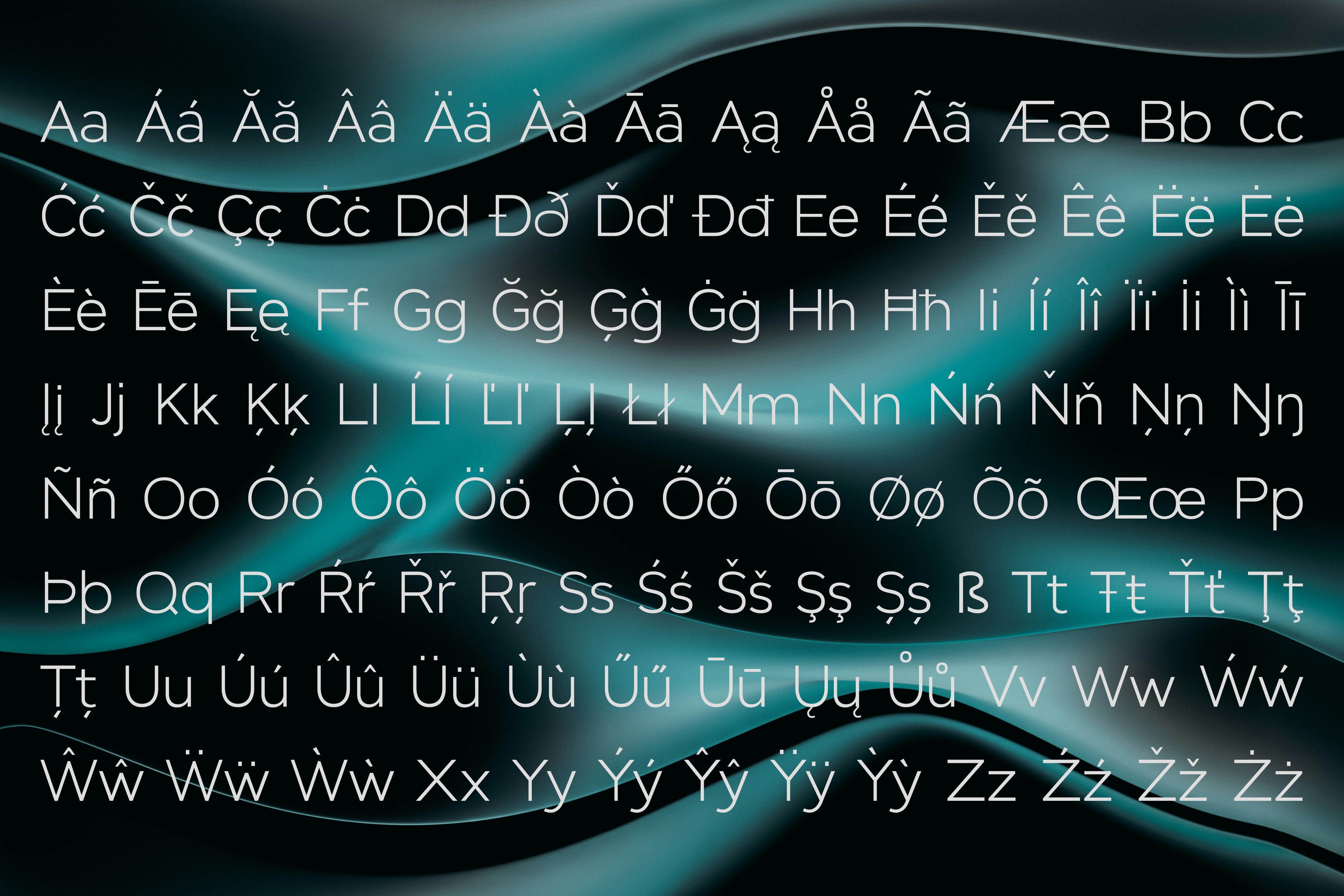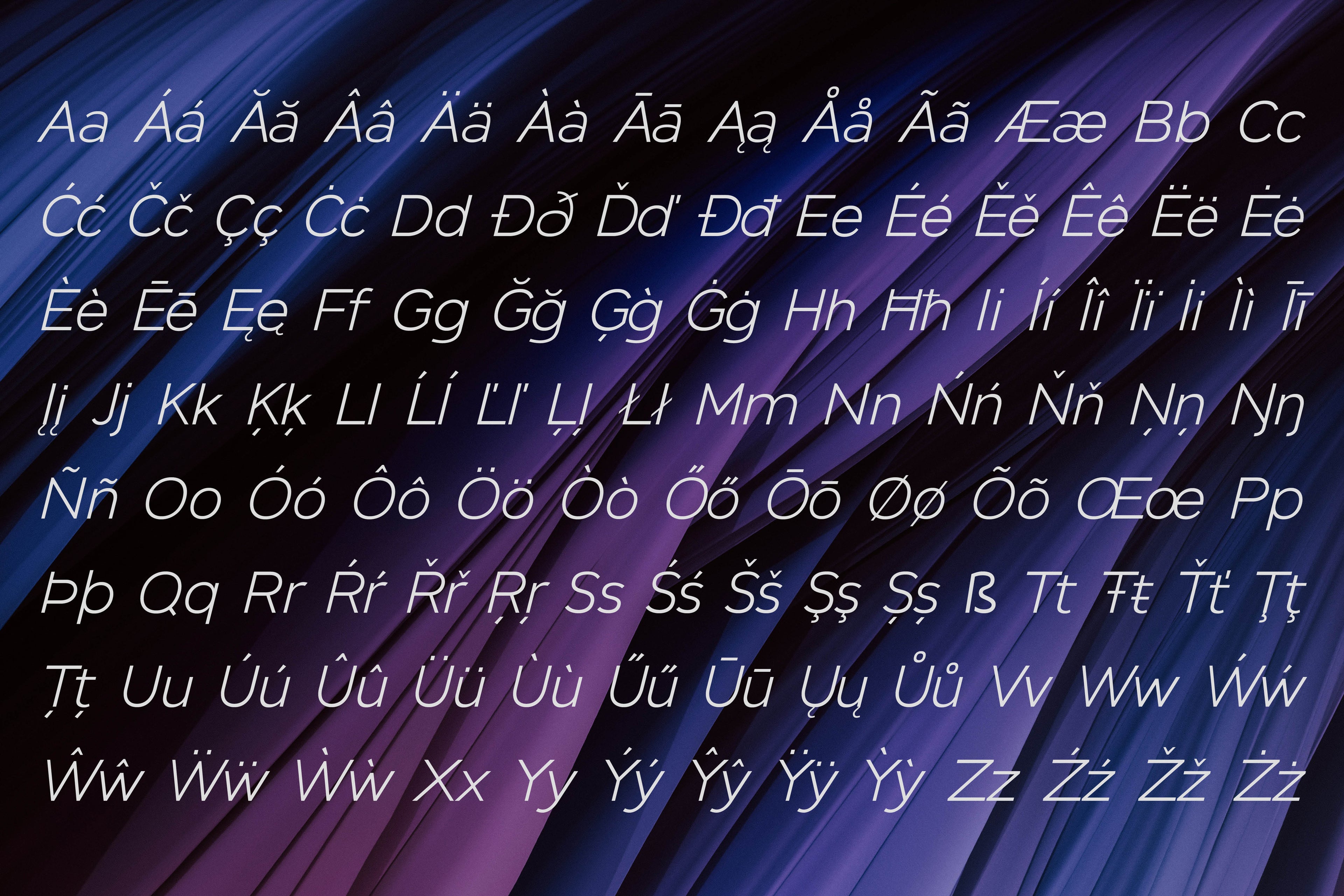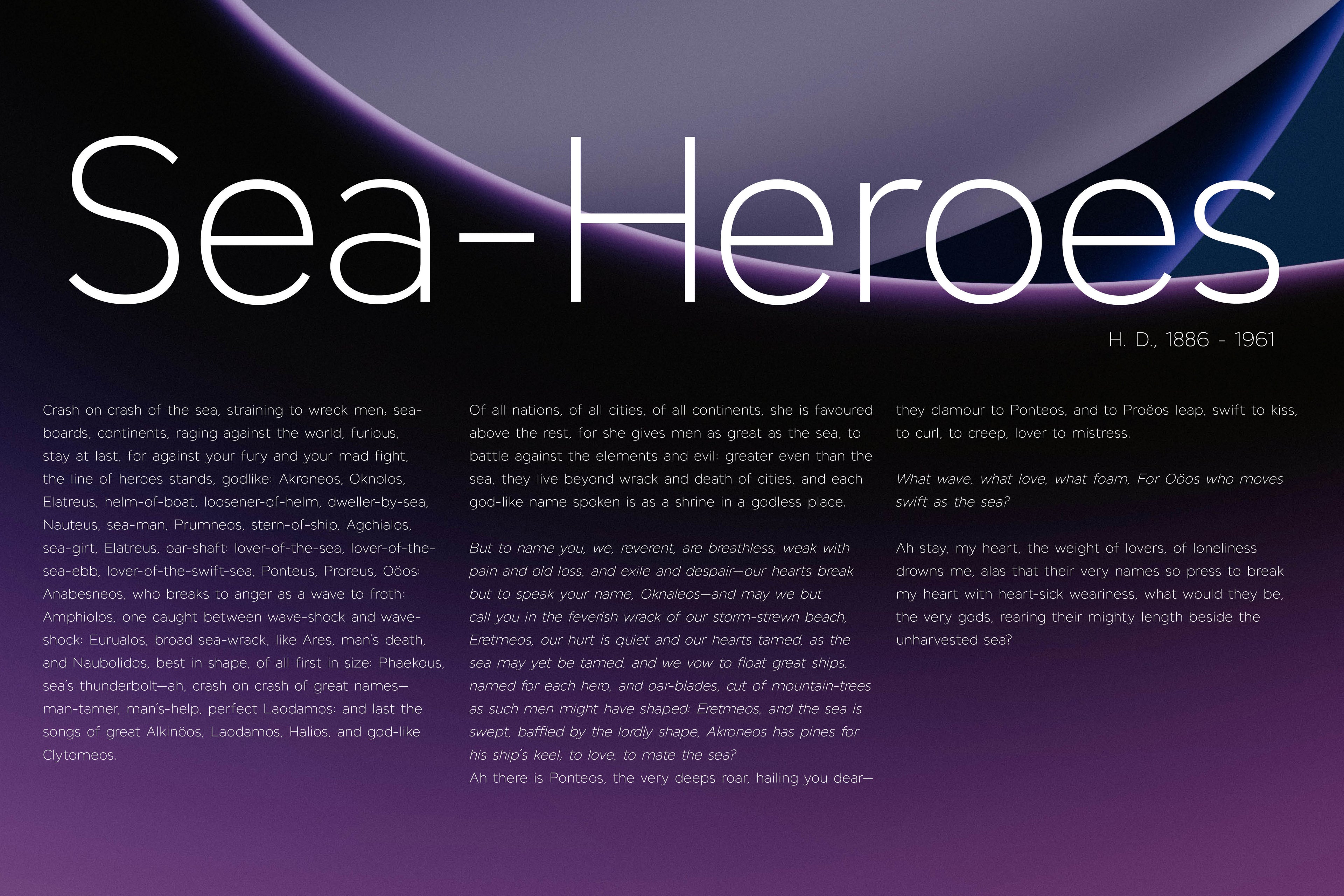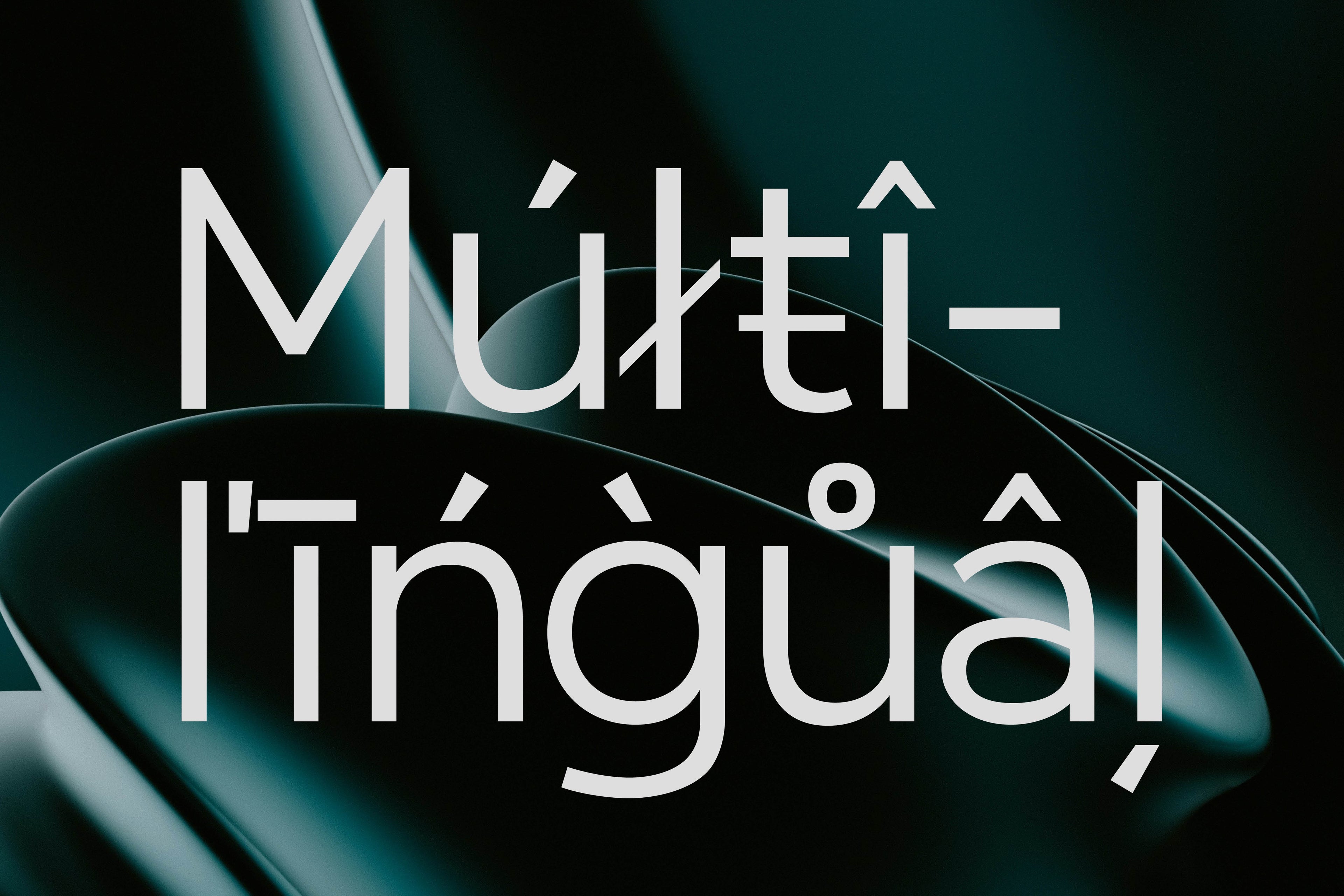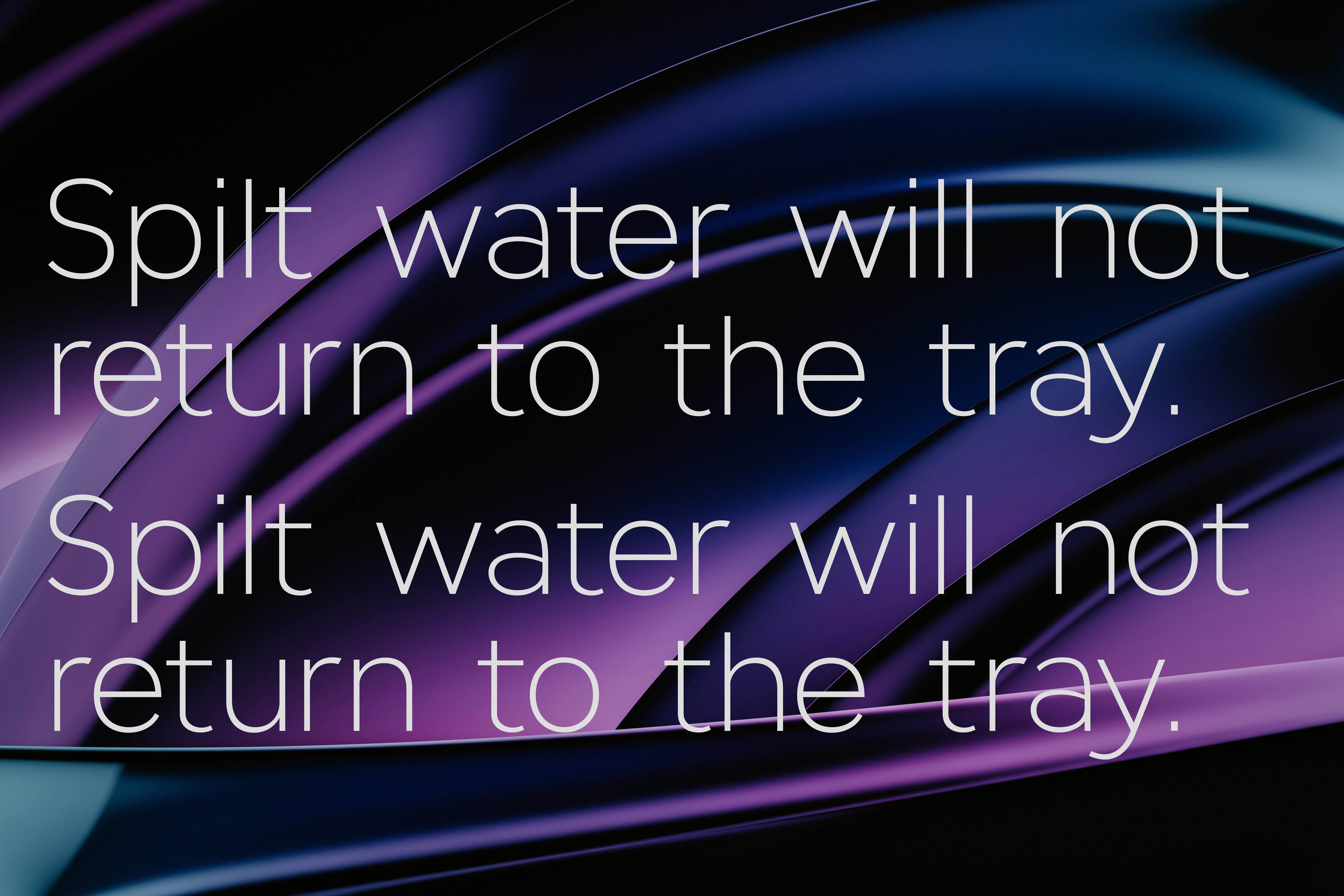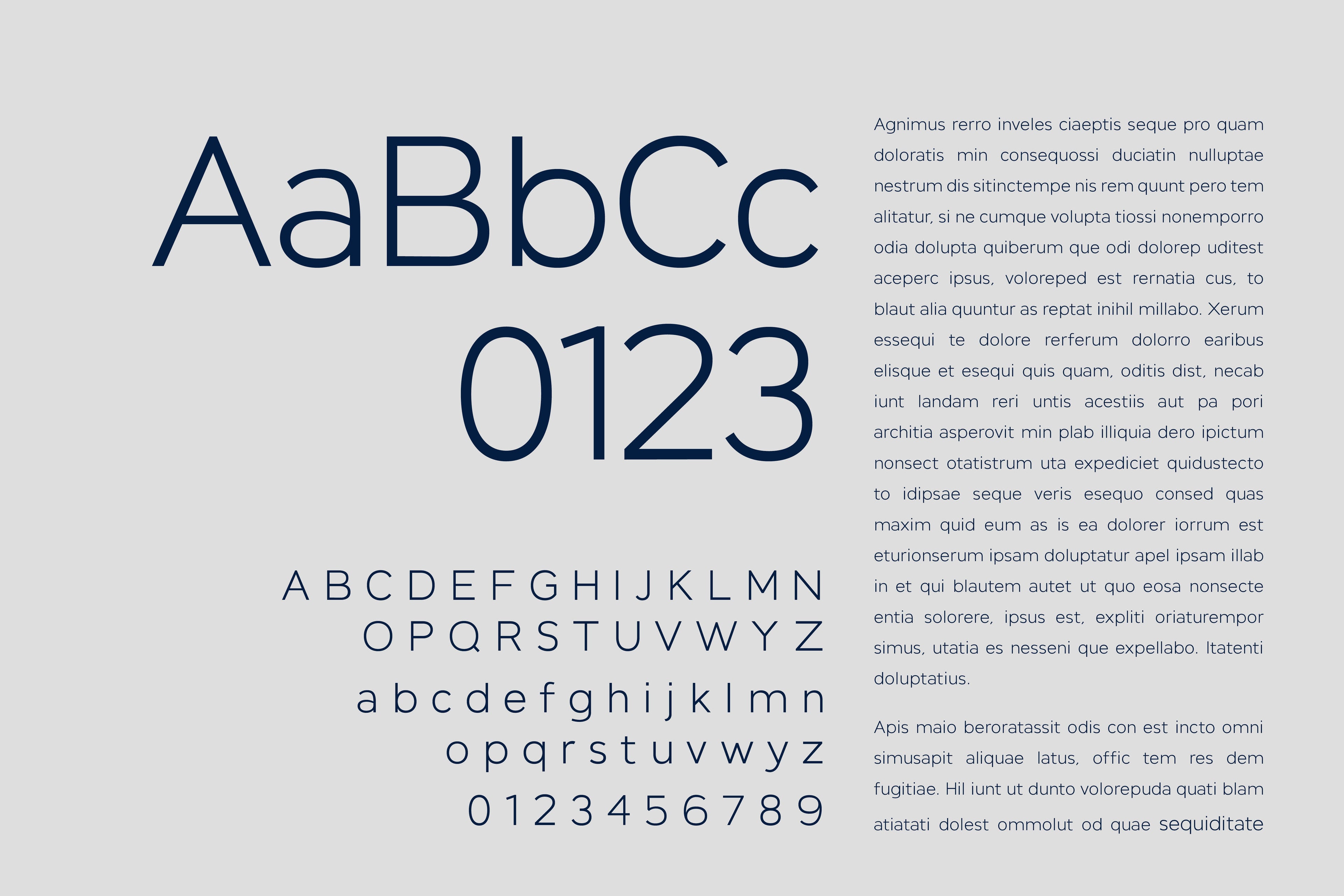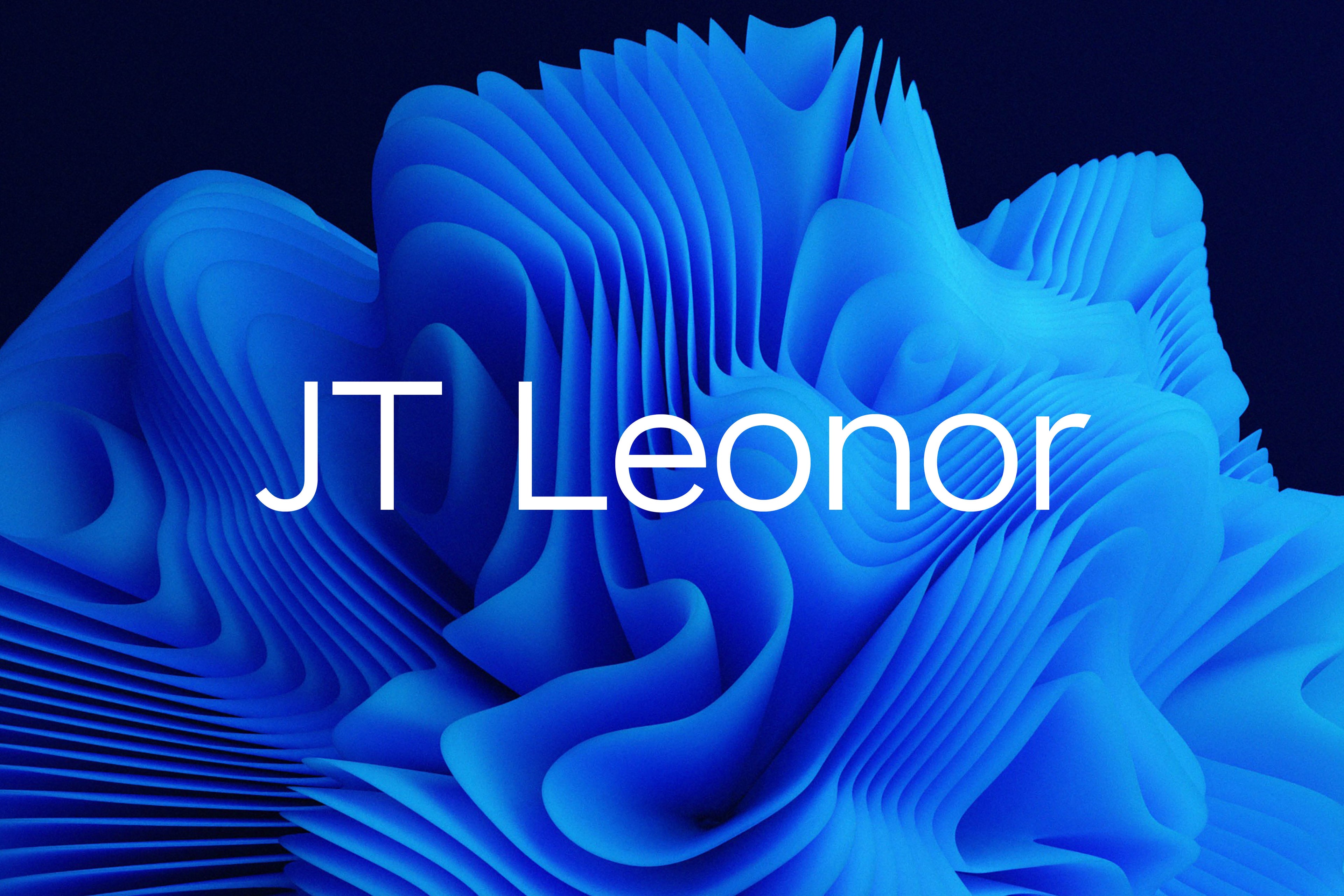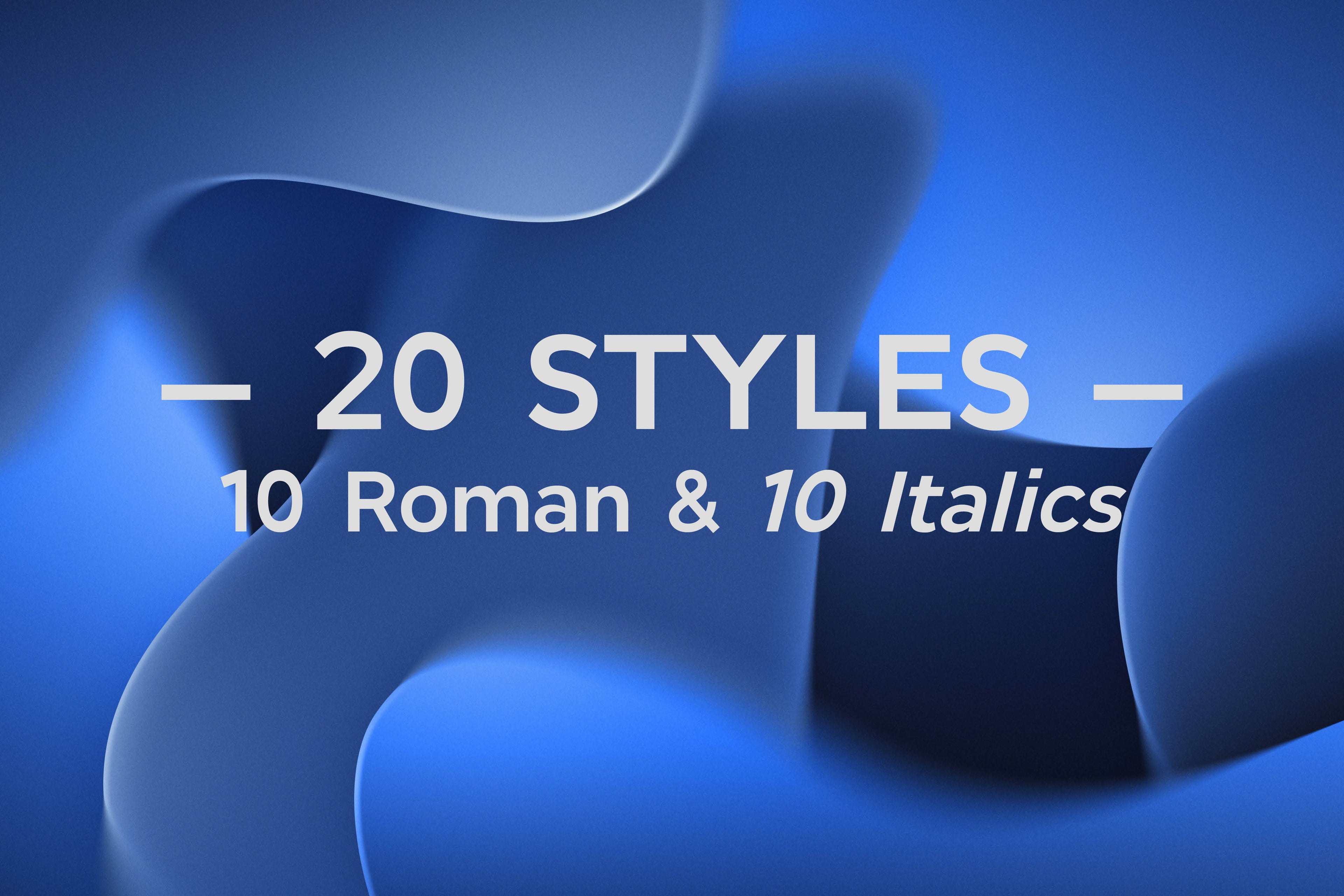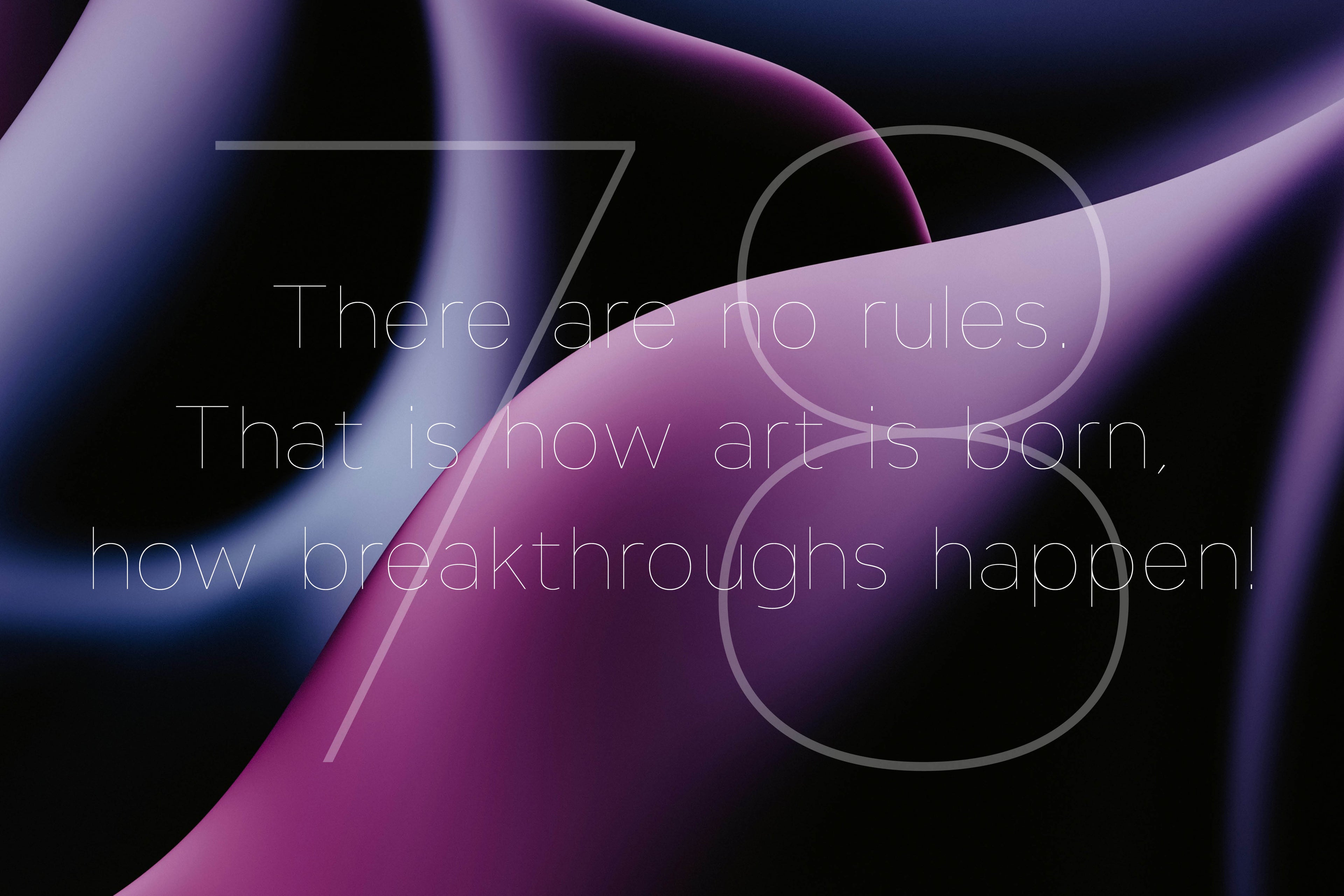
JT Leonor is inspired by the world-renowned Gotham typeface but with a more square feel in its light weights and a rounder bold range, this typeface is perfectly suited to both large chunks of body copy as well as large headlines.
JT Leonor